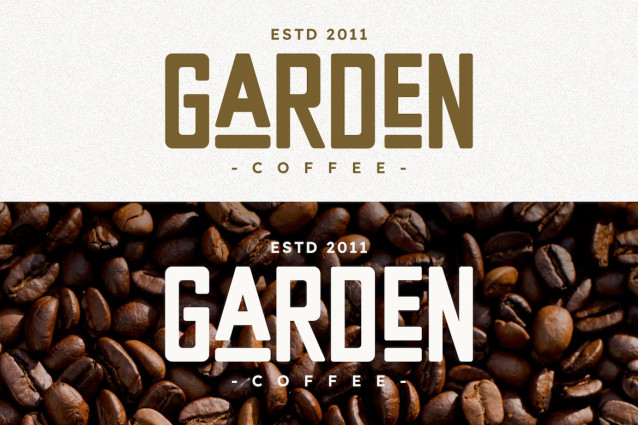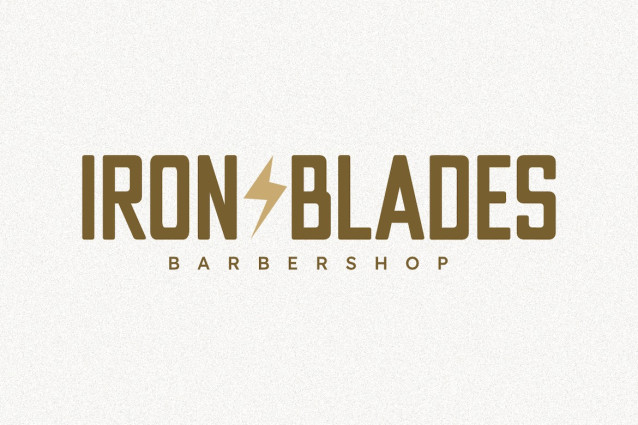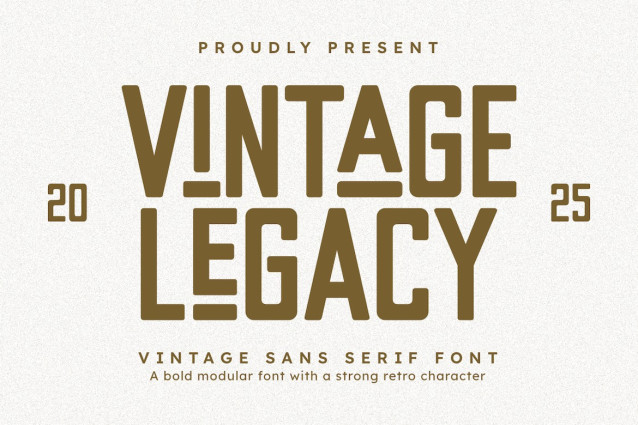
Vintage Legacy Font
Vintage Legacy Font is a bold modular sans serif font with a strong retro character. Inspired by classic vintage lettering and industrial signage, this font is perfect for logo design, branding, posters, headlines, packaging, and editorial layouts. Its geometric forms and clean cuts make it ideal for creating powerful designs with a masculine and timeless touch.